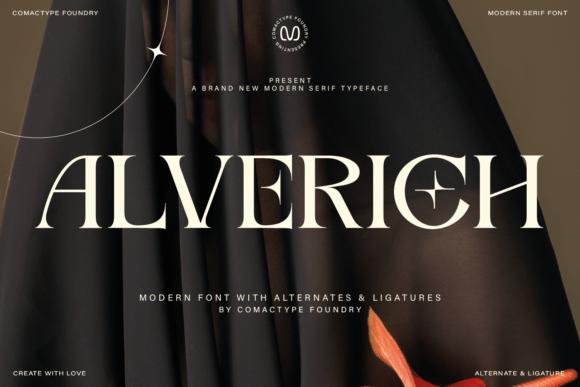
The Alverich Font: A Modern Serif Masterpiece
I’ll never forget the struggle I faced while working on a luxury brand’s editorial project. The client wanted a font that exuded elegance, sophistication, and a touch of modernity. I scoured the internet, tried countless fonts, but nothing seemed to fit the bill. That’s when I stumbled upon Alverich Font, a game-changing modern serif typeface designed by Comactype Foundry. In this article, I’ll share my experience with Alverich, its features, and how to make the most of it in your designs.
What Makes Alverich Special?
Alverich is a modern serif typeface that boasts a sophisticated and elegant aesthetic. Its sharp, well-defined serifs and balanced contrast between thick and thin strokes give it a timeless yet contemporary appeal. The font includes a complete set of uppercase and lowercase letters, numerals, punctuation, and special characters, making it versatile for various design applications.
Key Features of Alverich Font
- ✨ Sharp, well-defined serifs for a sophisticated look
- ✅ Balanced contrast between thick and thin strokes for a harmonious feel
- 🔥 Complete set of uppercase and lowercase letters, numerals, punctuation, and special characters
- 🎨 Selection of alternates and ligatures for creative flexibility
What I Love About Alverich
- ✨ The elegant and sophisticated aesthetic that works well for luxury brands
- ✅ The selection of alternates and ligatures that add visual interest
- 🔥 The versatility of the font for various design applications, from branding to editorial design
While Alverich is an excellent font, there are a few minor limitations to consider:
- ⚠️ The font may not be suitable for body text due to its elegant and refined nature
- 🤔 Some users may find the alternates and ligatures overwhelming, but they can be easily disabled
The Backstory of Alverich
Alverich was designed by Comactype Foundry with the goal of creating a modern serif typeface that exudes elegance and sophistication. The design team drew inspiration from classic serif fonts, but with a modern twist. The result is a font that is both timeless and contemporary, perfect for luxury brands and creative projects.
| Font Name | Alverich Font |
| Author | Comactype Foundry |
| What is Alverich Font? | Alverich is a modern serif typeface designed by Comactype Foundry, offering a sophisticated and elegant aesthetic. |
| What is the best use for Alverich Font? | Alverich is perfect for luxury brands, editorial design, invitations, and high-end publications. |
| Can I use Alverich for body text? | While Alverich is elegant and refined, it may not be suitable for body text due to its sophisticated nature. |
| Does Alverich support OpenType features? | Yes, Alverich supports OpenType features, including alternates and ligatures. |